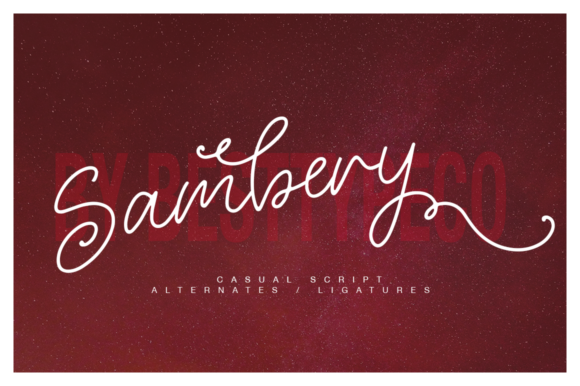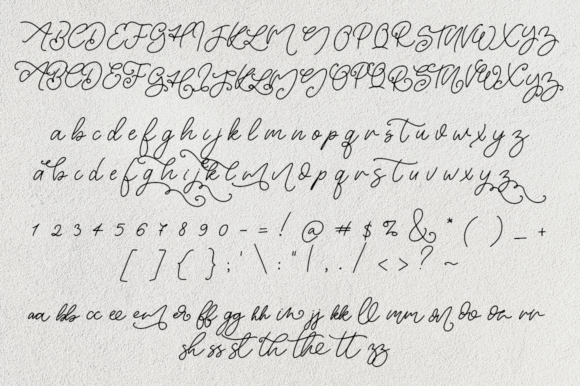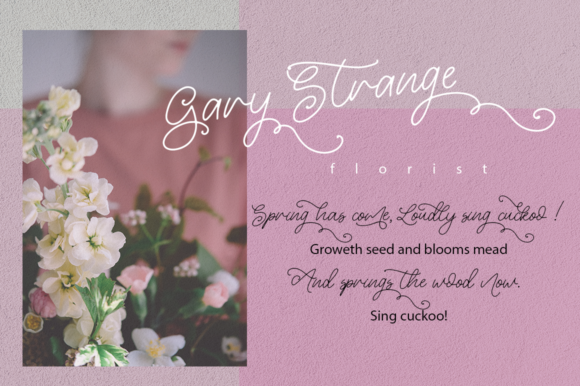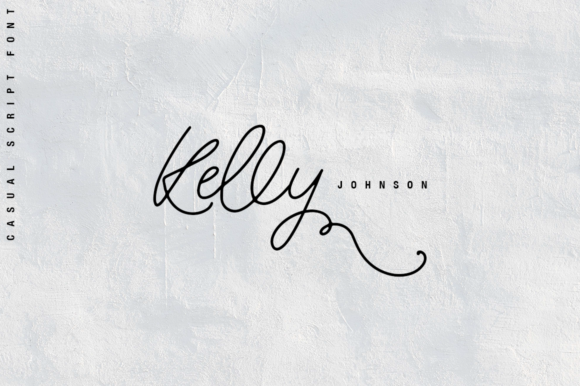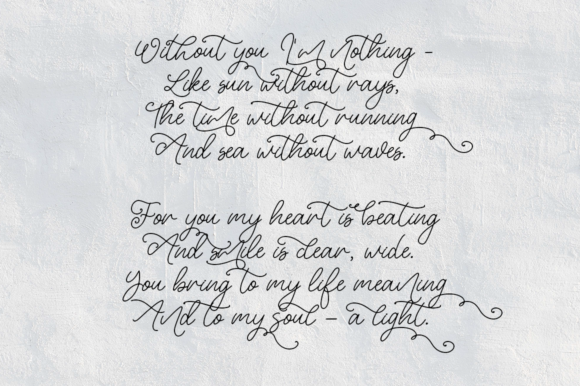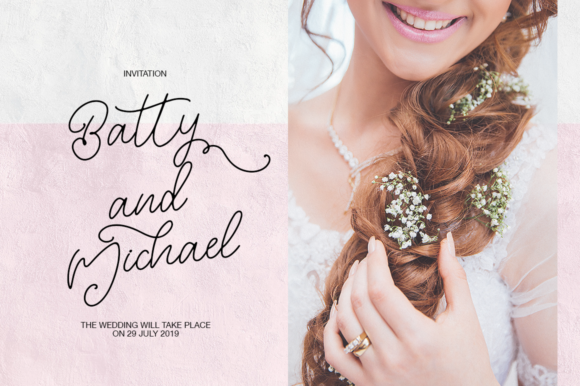
Sambery Font
About Sambery Font
Sambery is a beautiful and fresh handmade calligraphy font. It’s suitable for greeting cards, branding materials, business cards, quotes, posters, and a lot more!